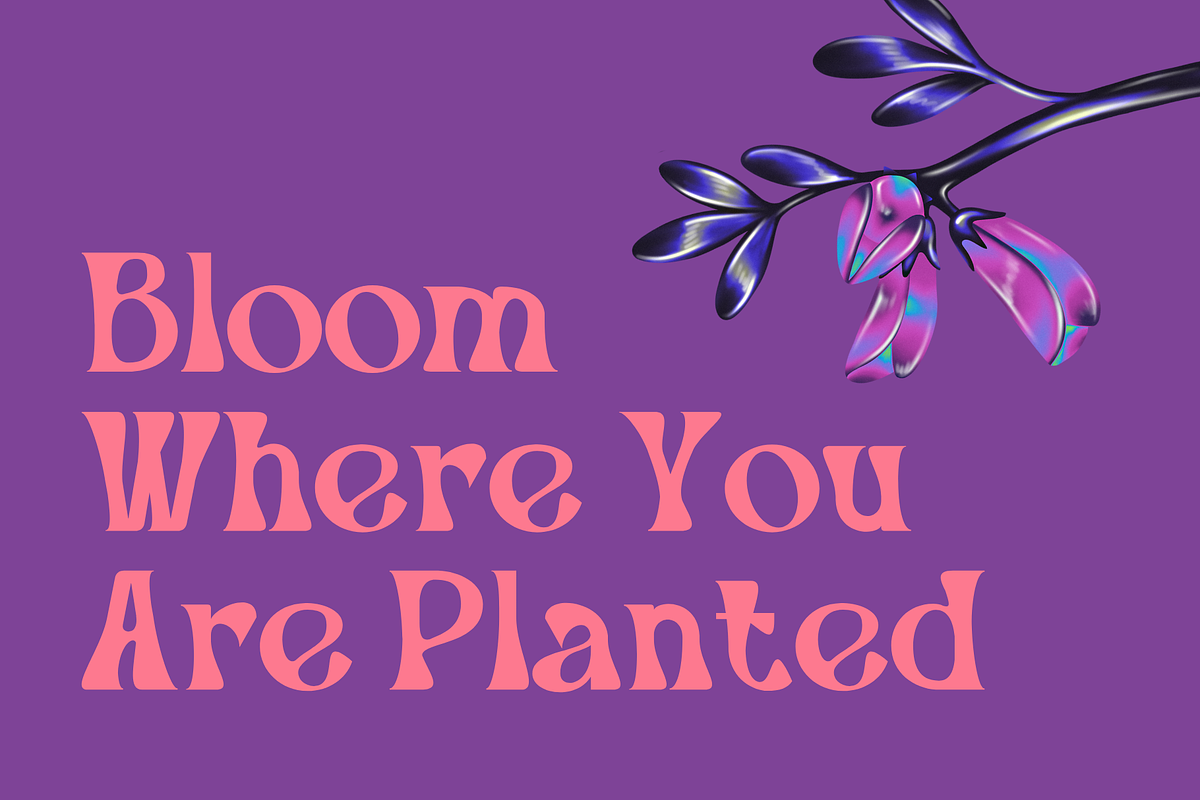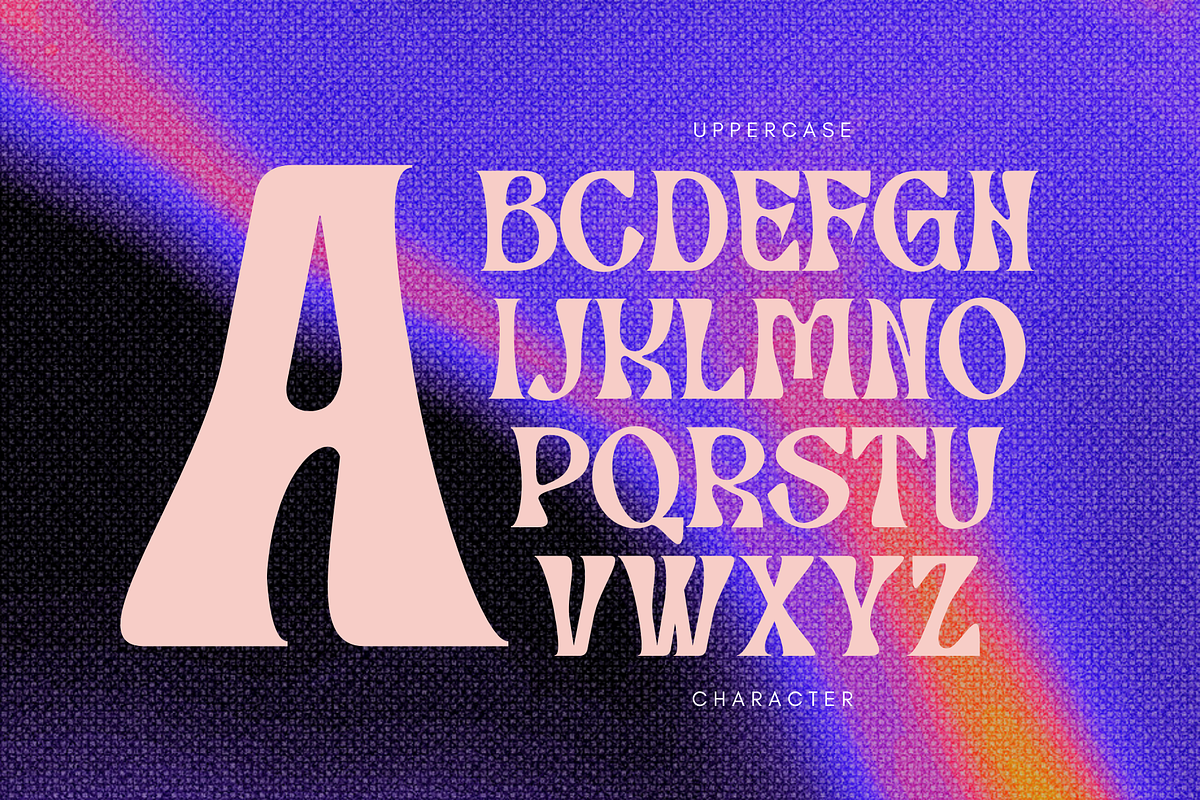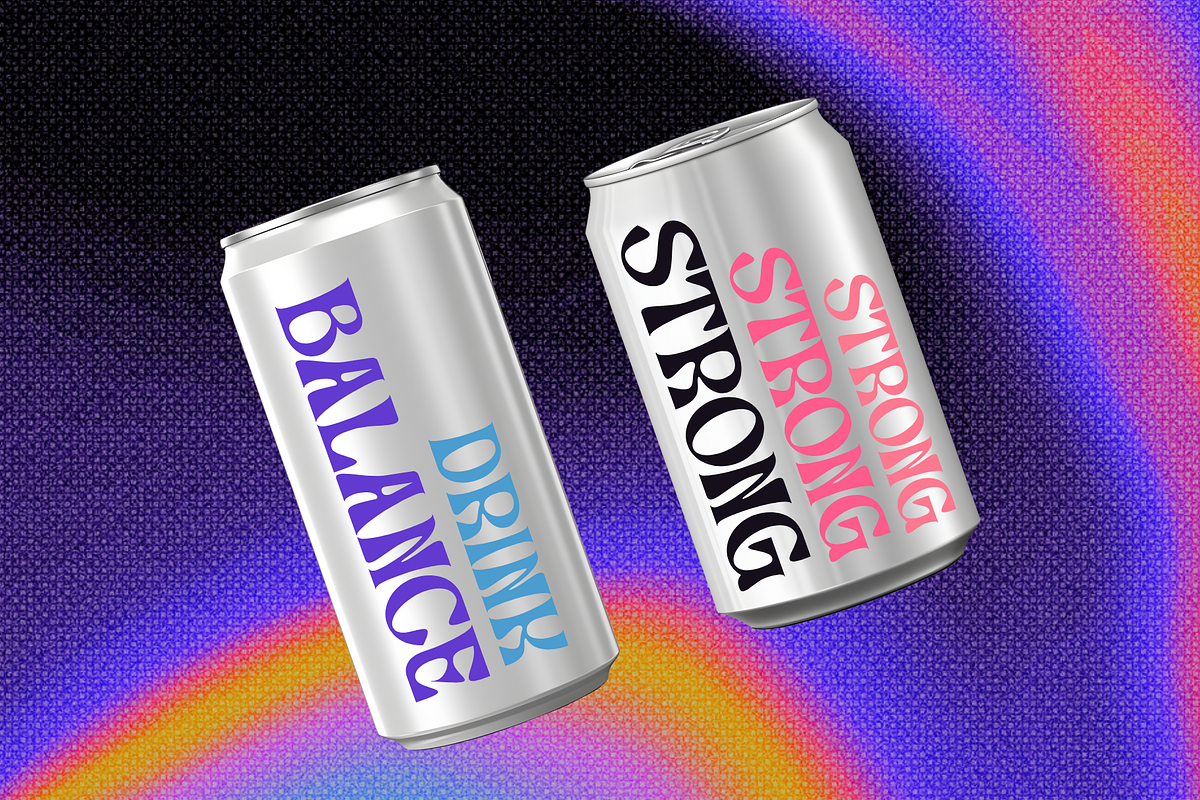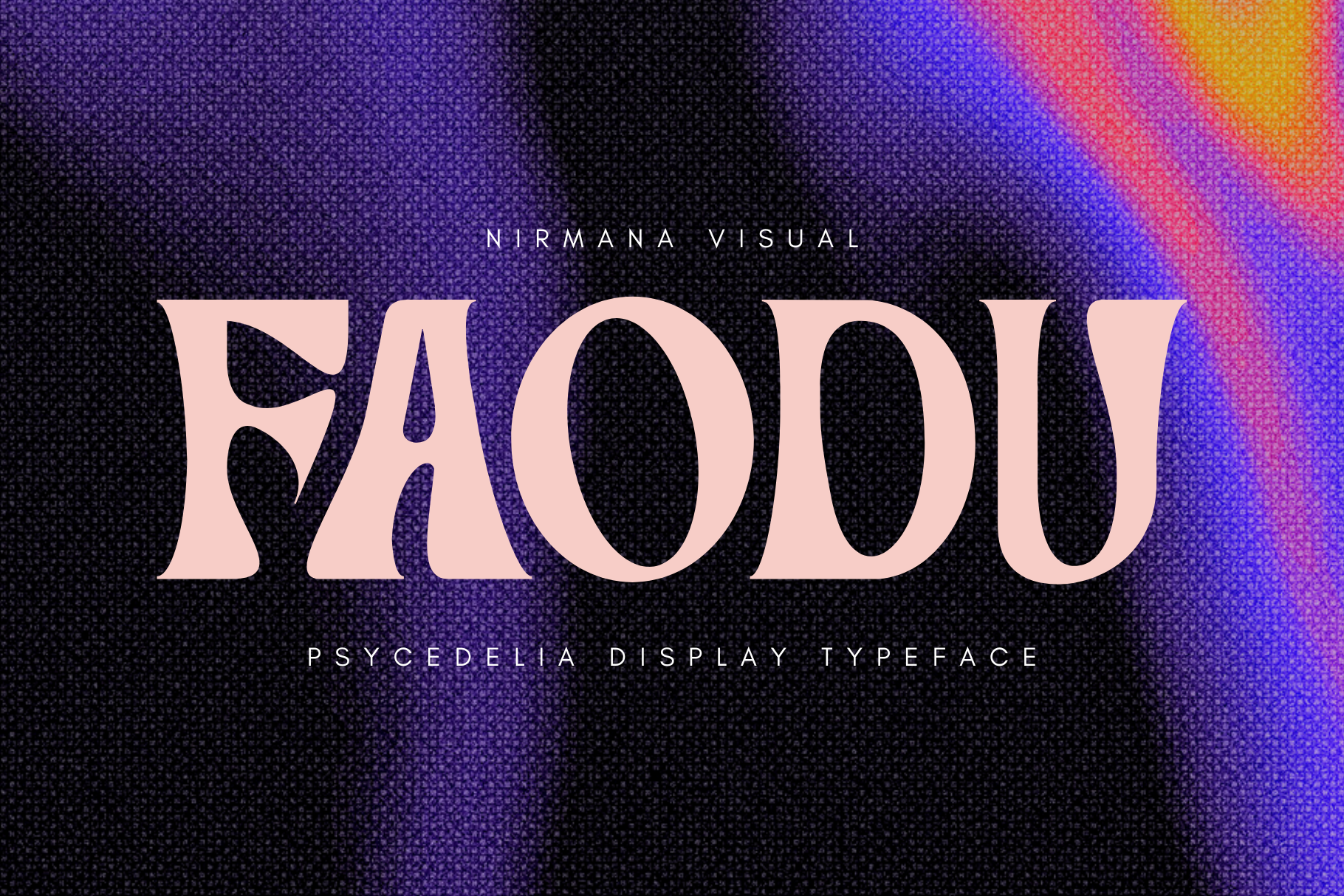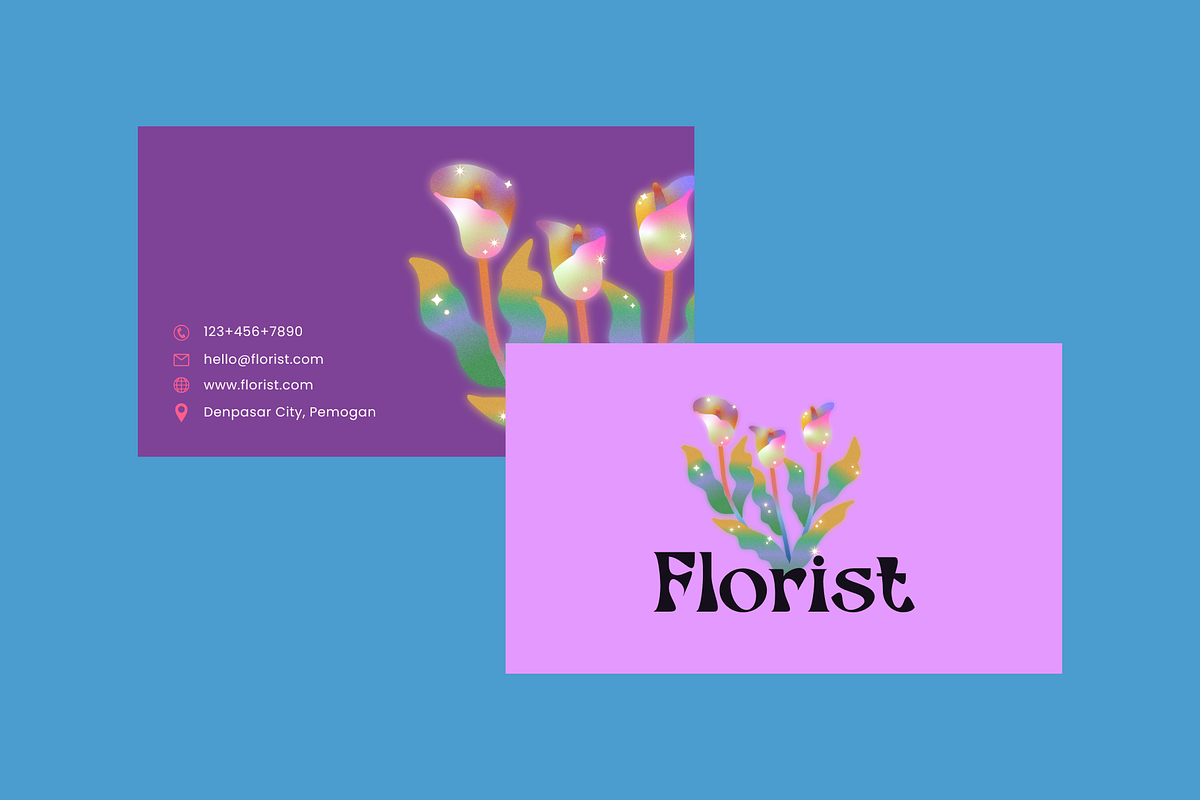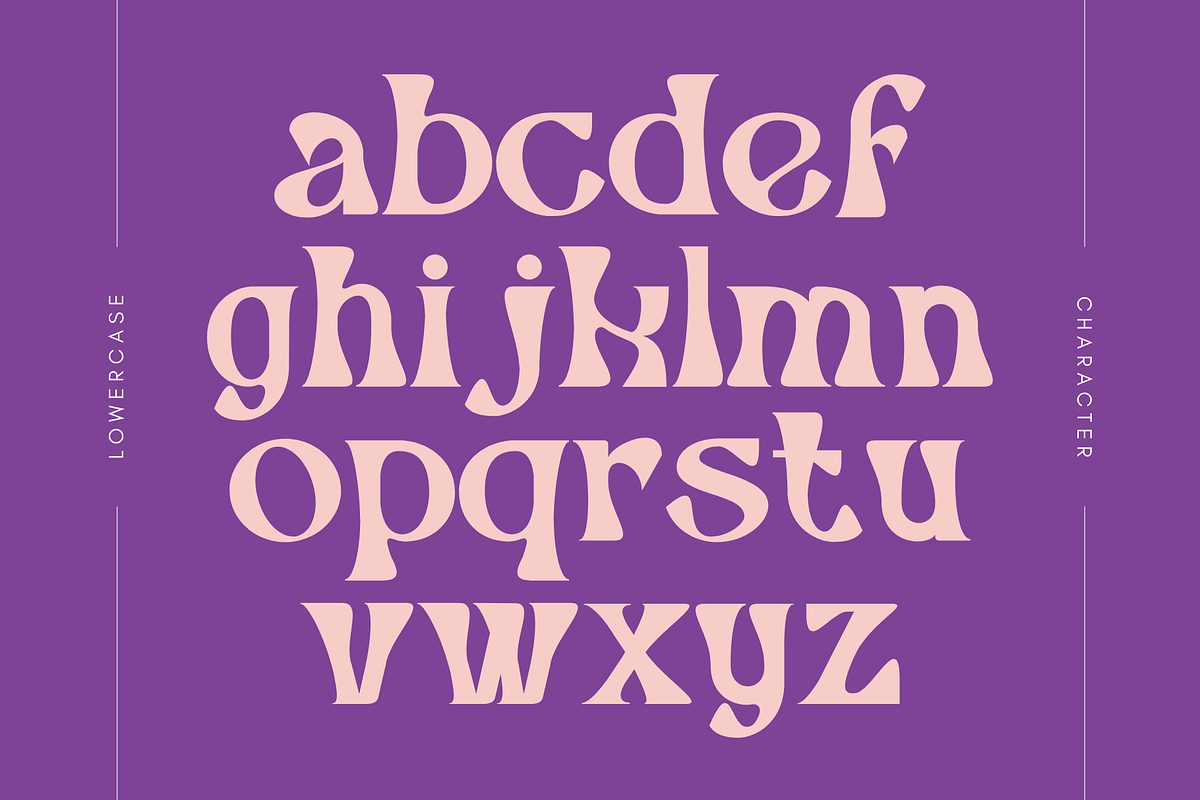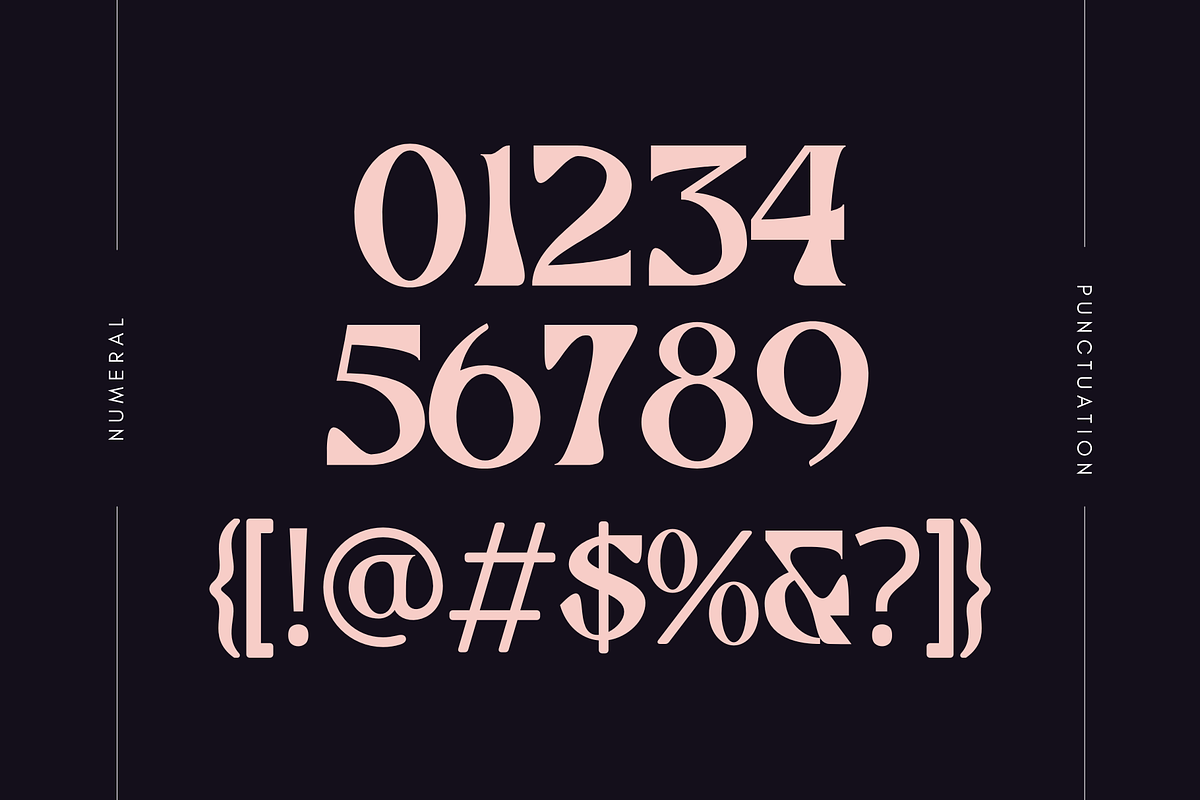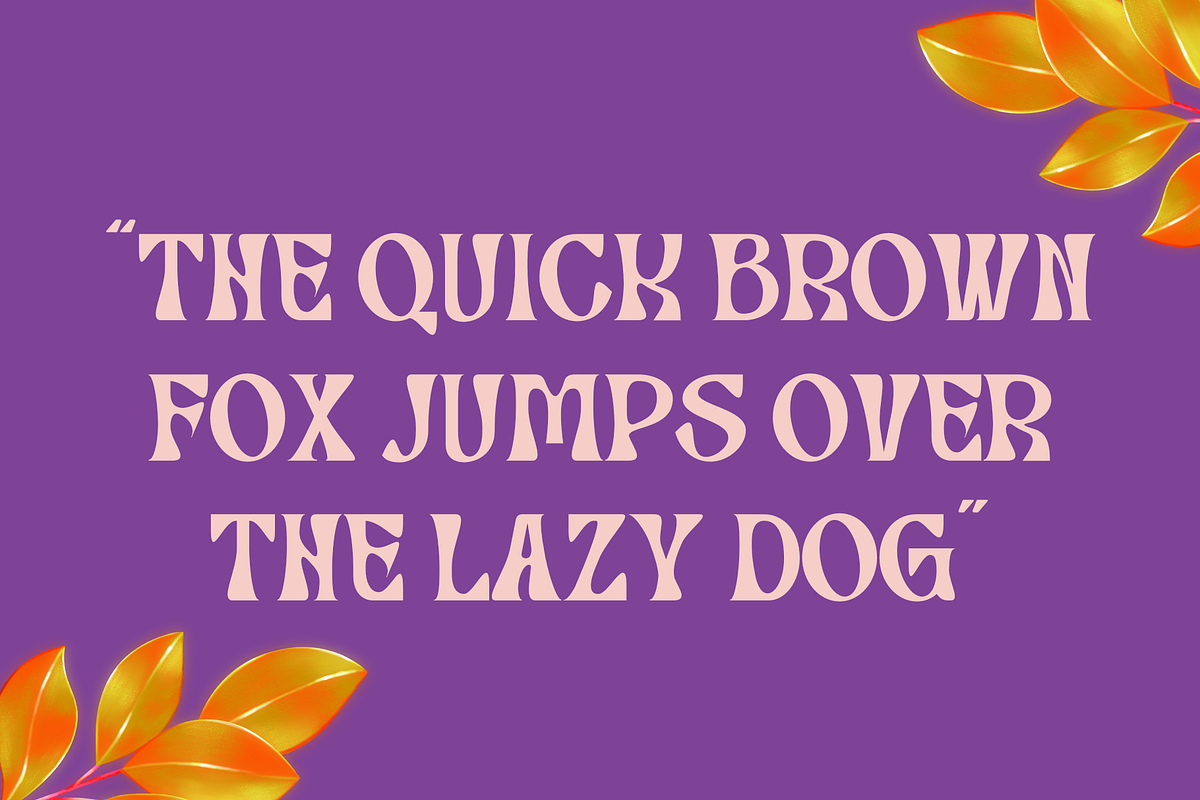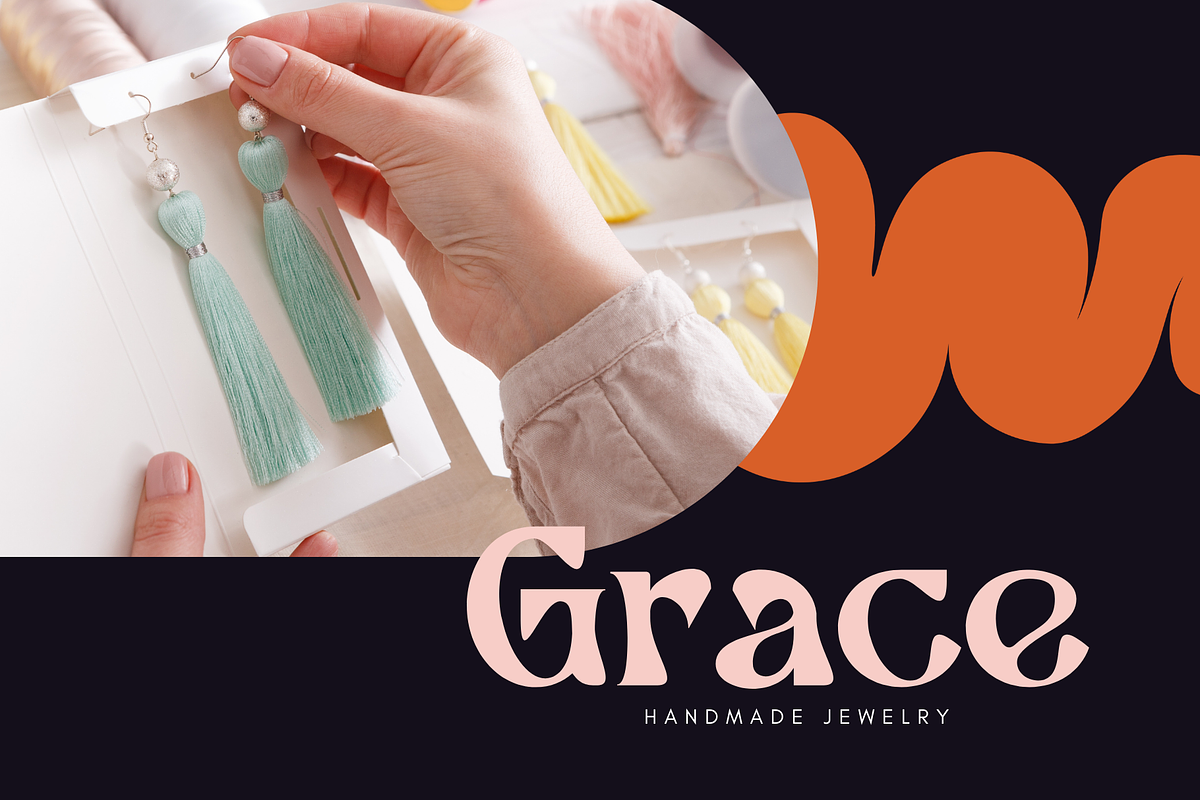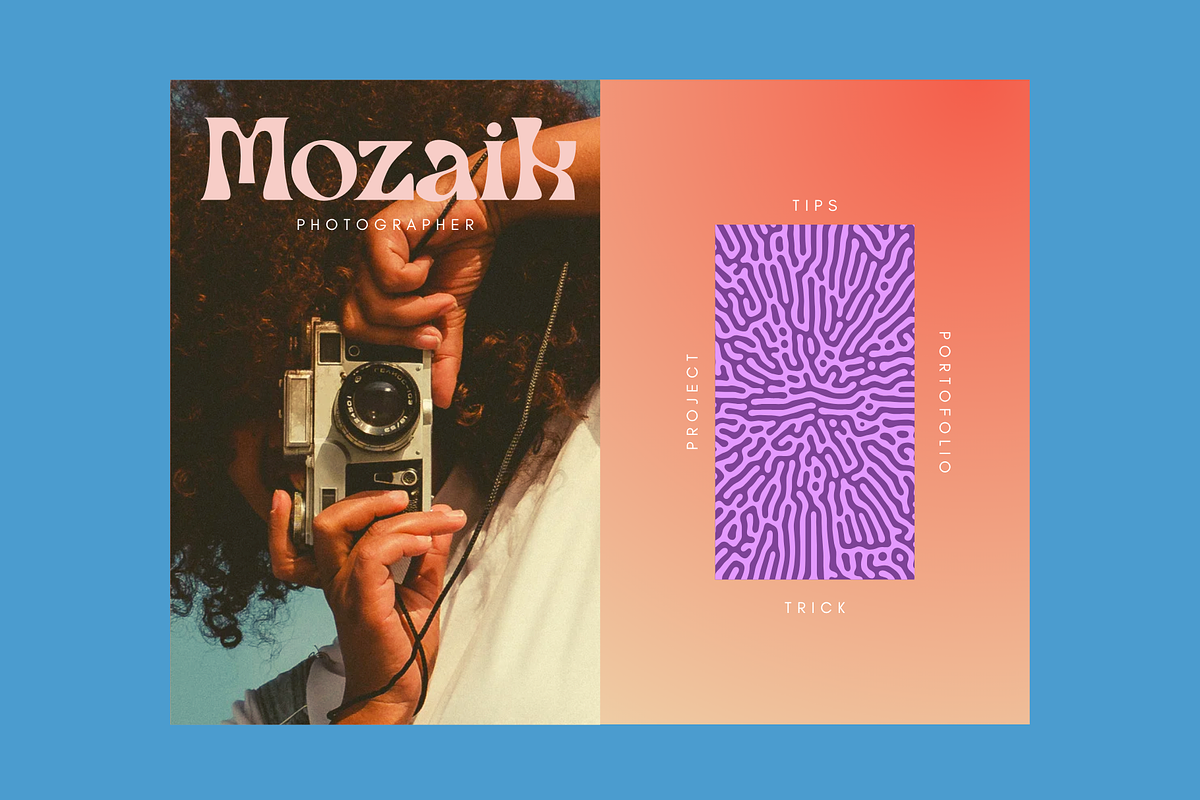
Faodu - Branding Logo Font
Faodu is a vibrant and eclectic psychedelia-inspired display font that bursts with personality and retro charm. With its fluid, wavy forms and bold, organic curves, Faodu captures the free-spirited essence of 60s and 70s psychedelic art. Perfect for posters, album covers, branding, and creative projects, this font brings a nostalgic yet modern twist to your designs.